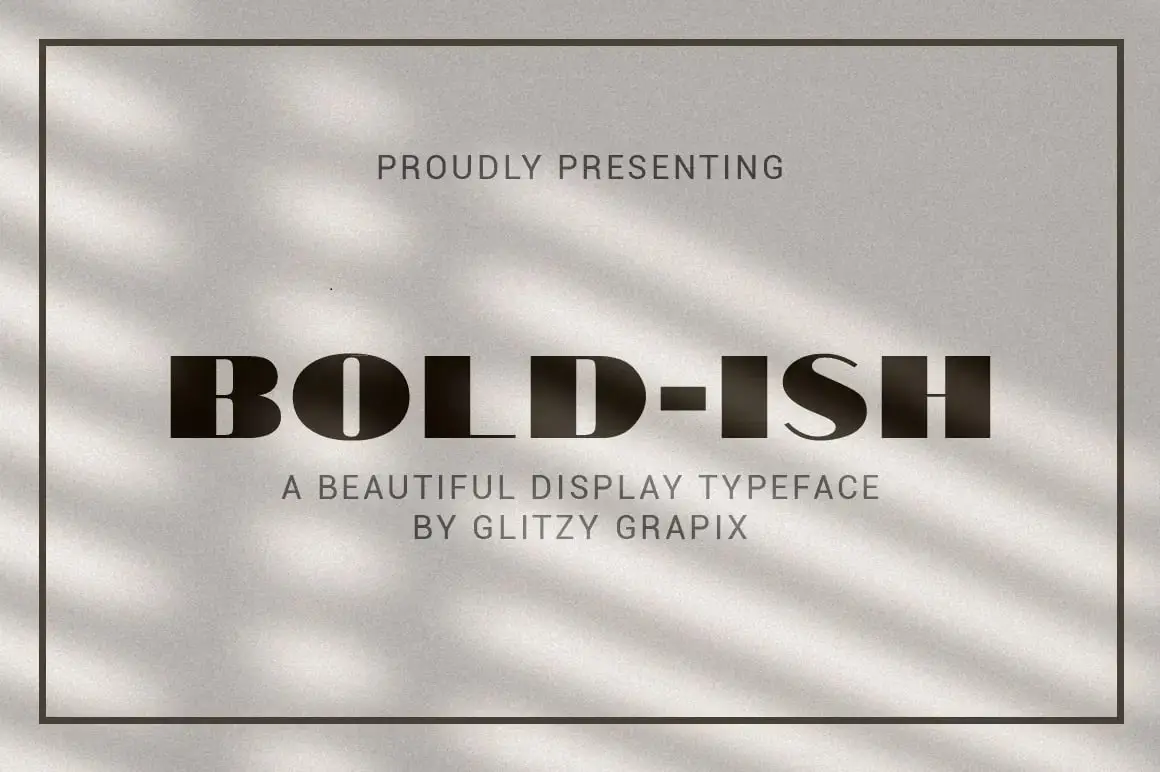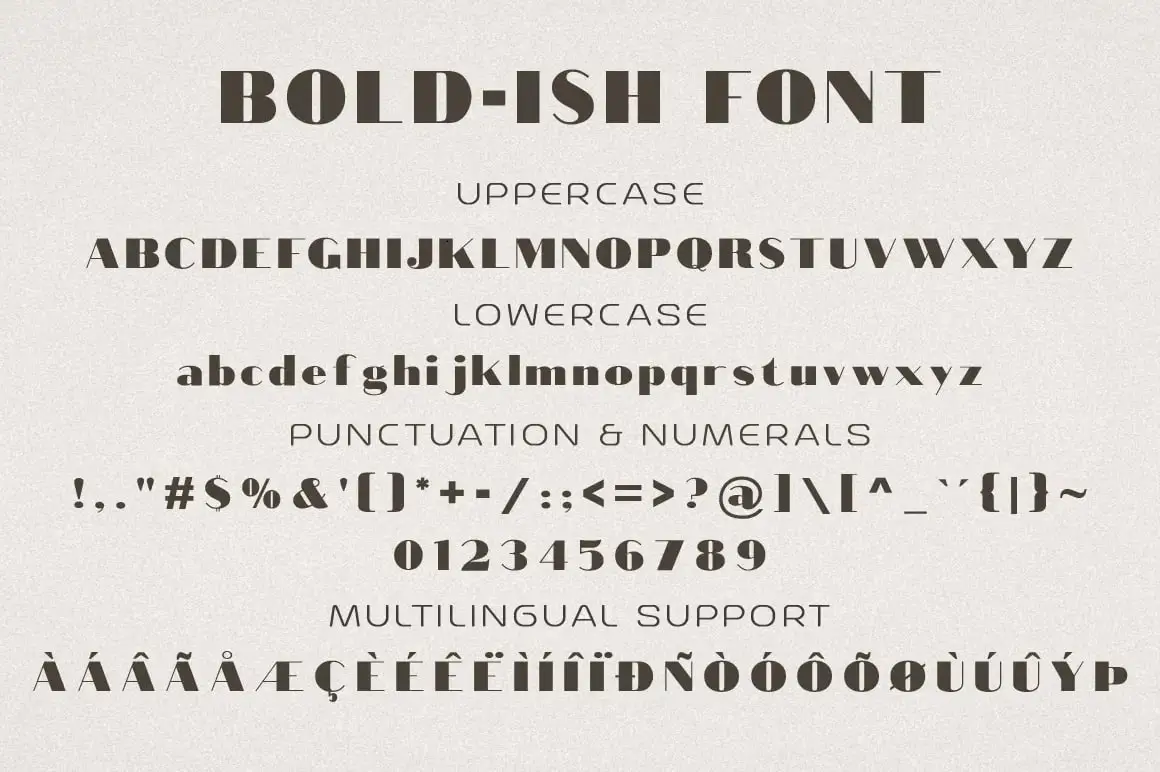
Bold-Ish Font A Modern Bold Typeface
Introducing the Bold-Ish Font, a modern bold typeface designed to make a statement. This font combines contemporary aesthetics with strong, impactful letterforms, making it ideal for various applications.
• Modern bold design
• Perfect for web and print applications
• Ideal for branding projects, logos, and headlines
• Great for posters, flyers, and social media graphics
• Use in user interfaces for a modern touch